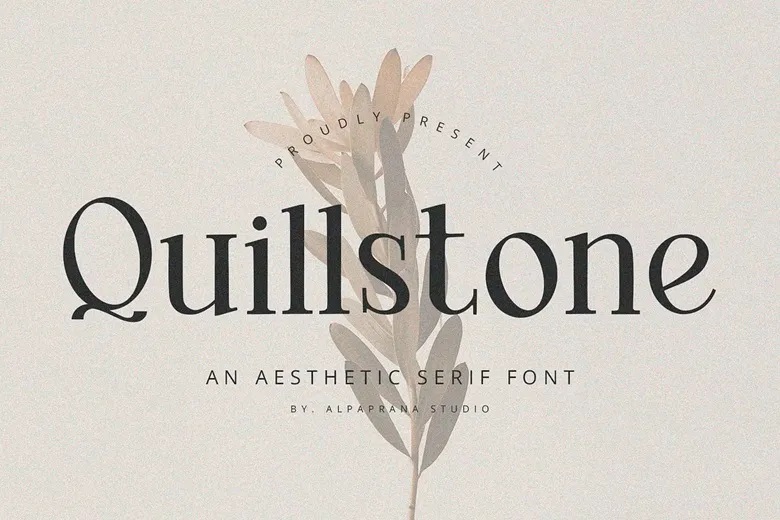
Quillstone Serif Font
Quillstone is an aesthetic serif typeface. It will be predominantly useful in branding, logo design, lettering, logotype, clothing, poster, magazine, packaging, posters, shopping bags, t-shirts, book covers, photography, special event and other designing purposes.